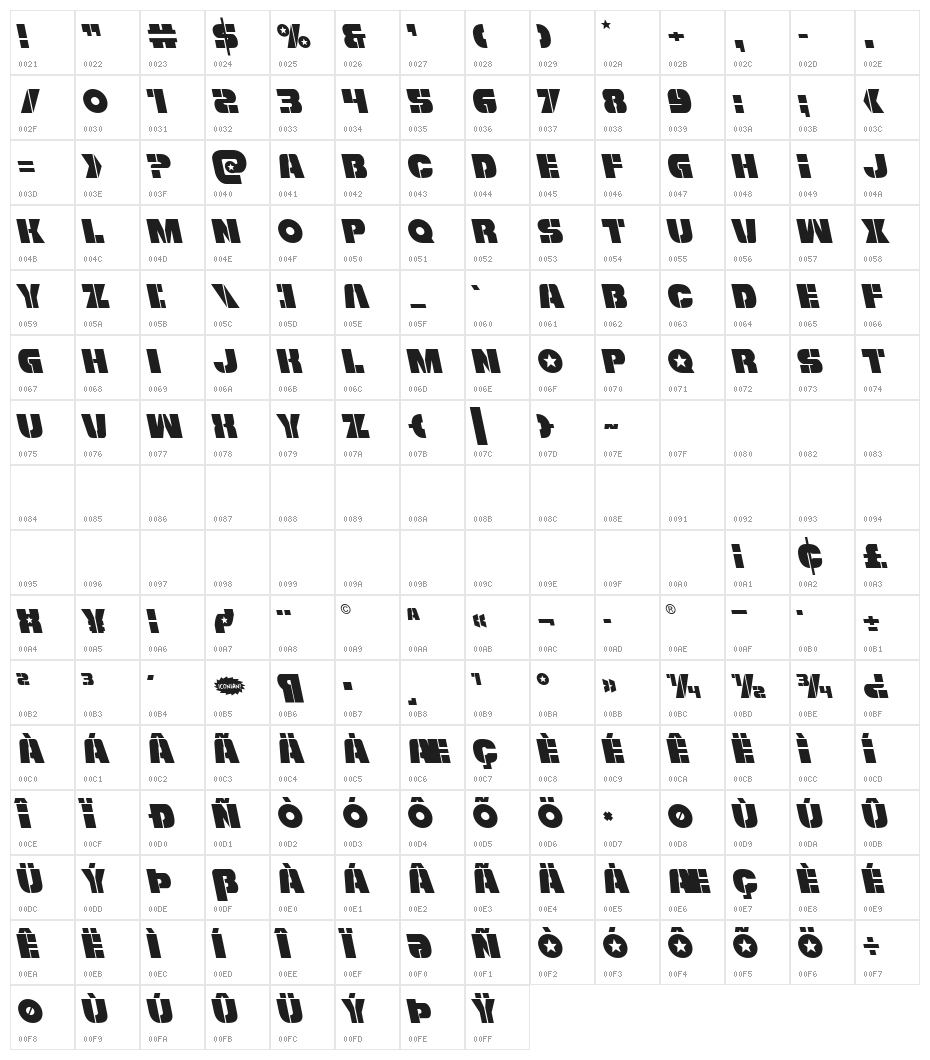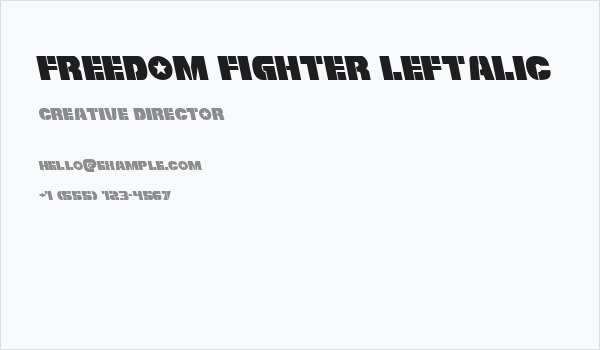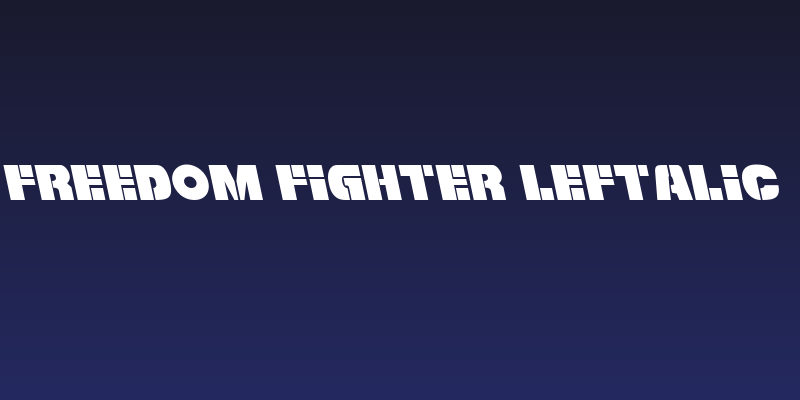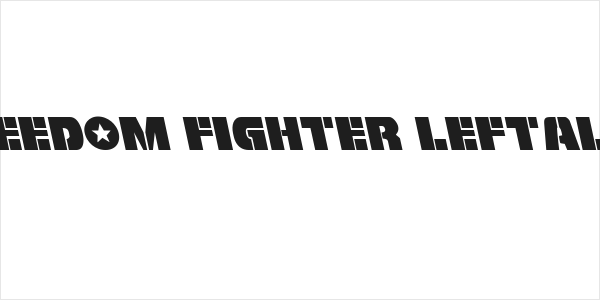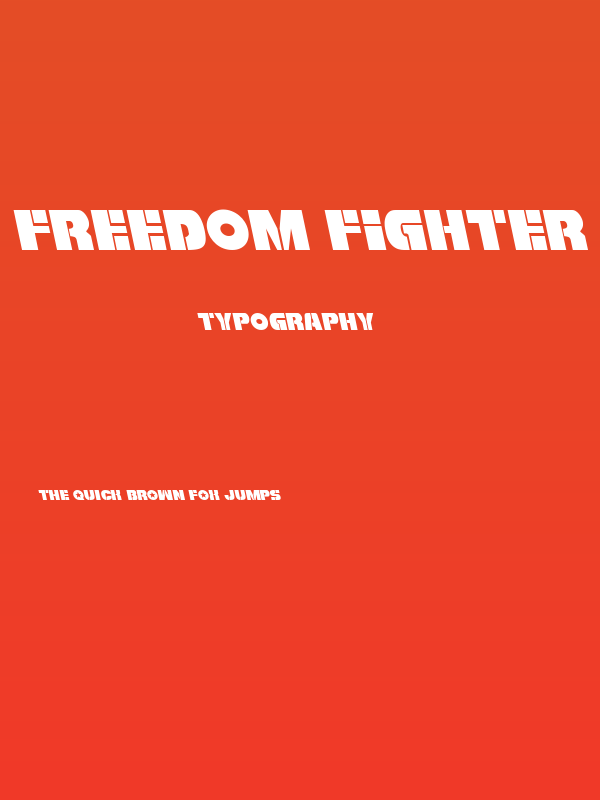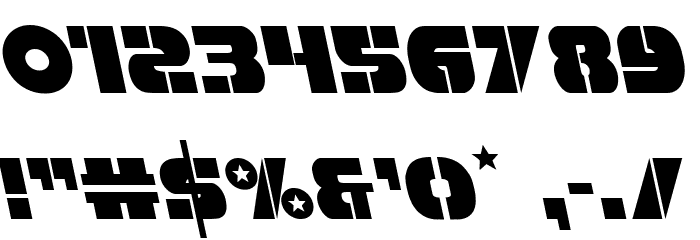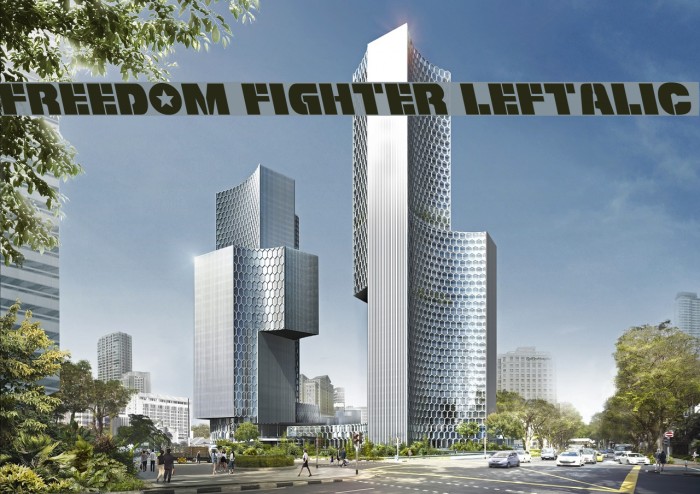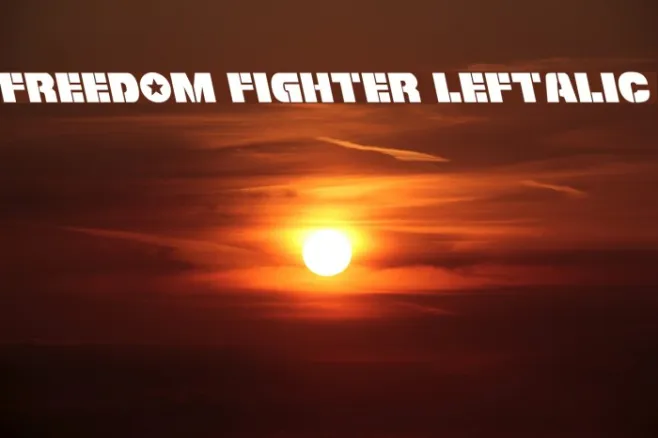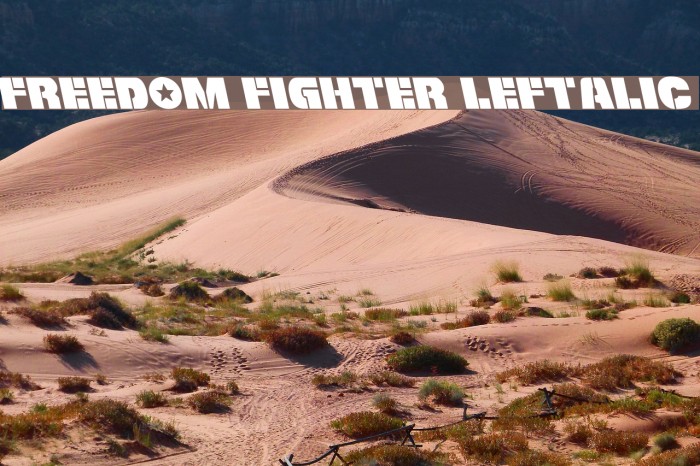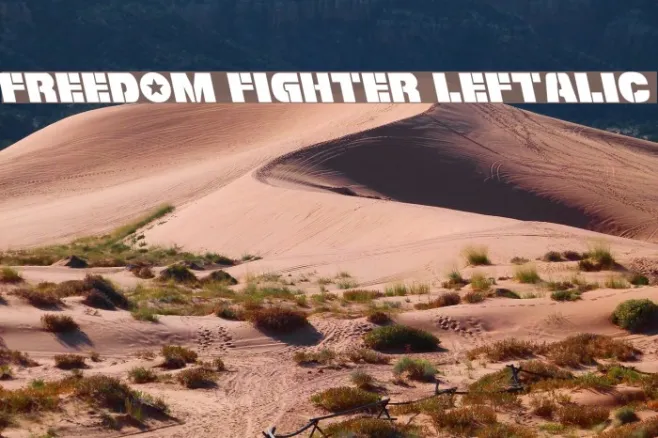
Freedom Fighter Leftalic Font
Freedom Fighter Leftalic Description
This font features a bold, stencil-like design with a strong, impactful presence. The characters are constructed with solid, blocky shapes and have a distinct, angular style. The uppercase letters include unique cutouts and star motifs, adding a decorative touch. The numbers and special characters maintain the same bold, geometric aesthetic, making them stand out. This font is ideal for creating attention-grabbing headlines and designs that require a strong visual impact.
| Proposed Projects | Ideal for military-themed posters, action movie titles, branding for sports teams, or any project needing a strong, impactful typeface. |